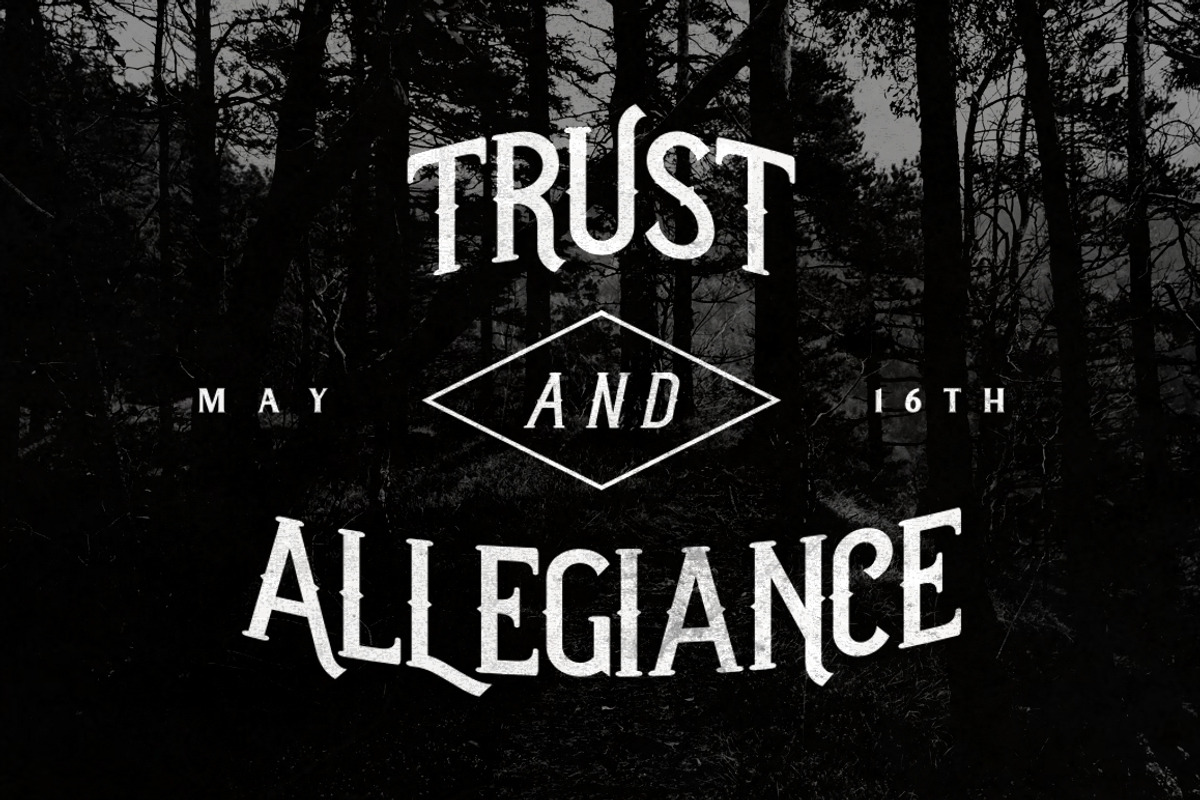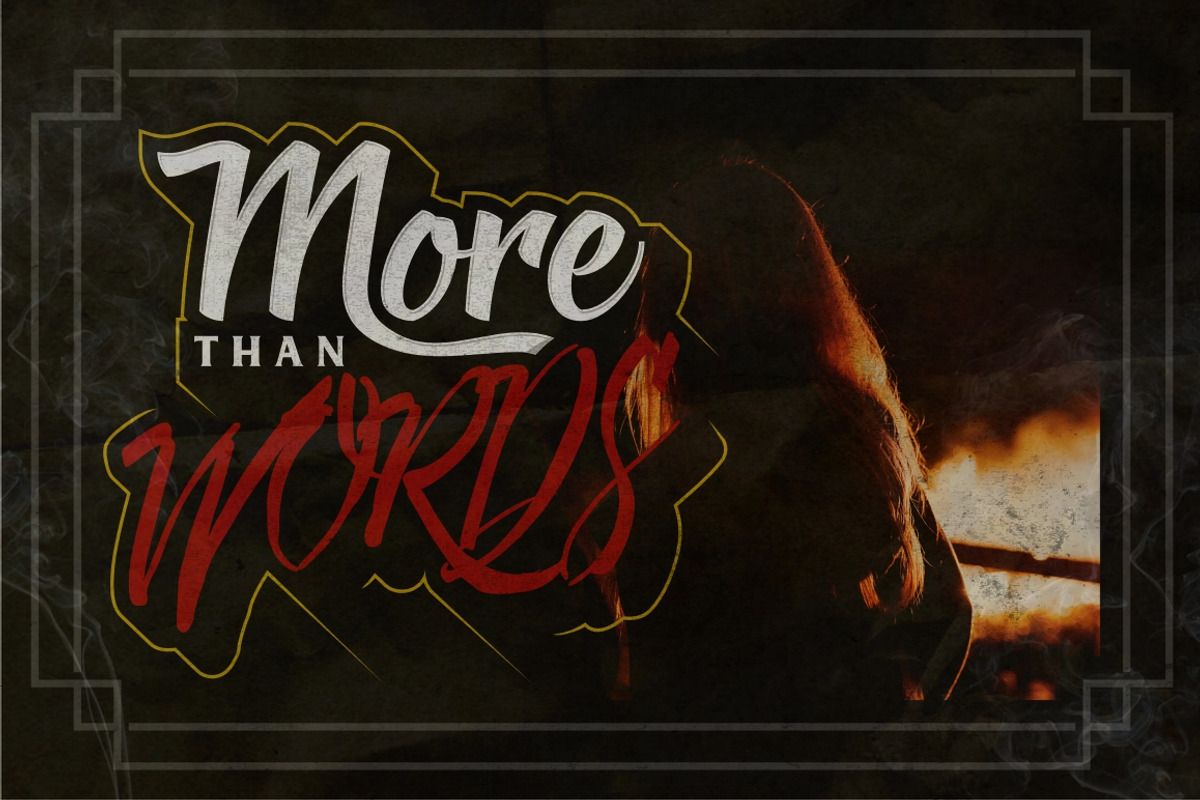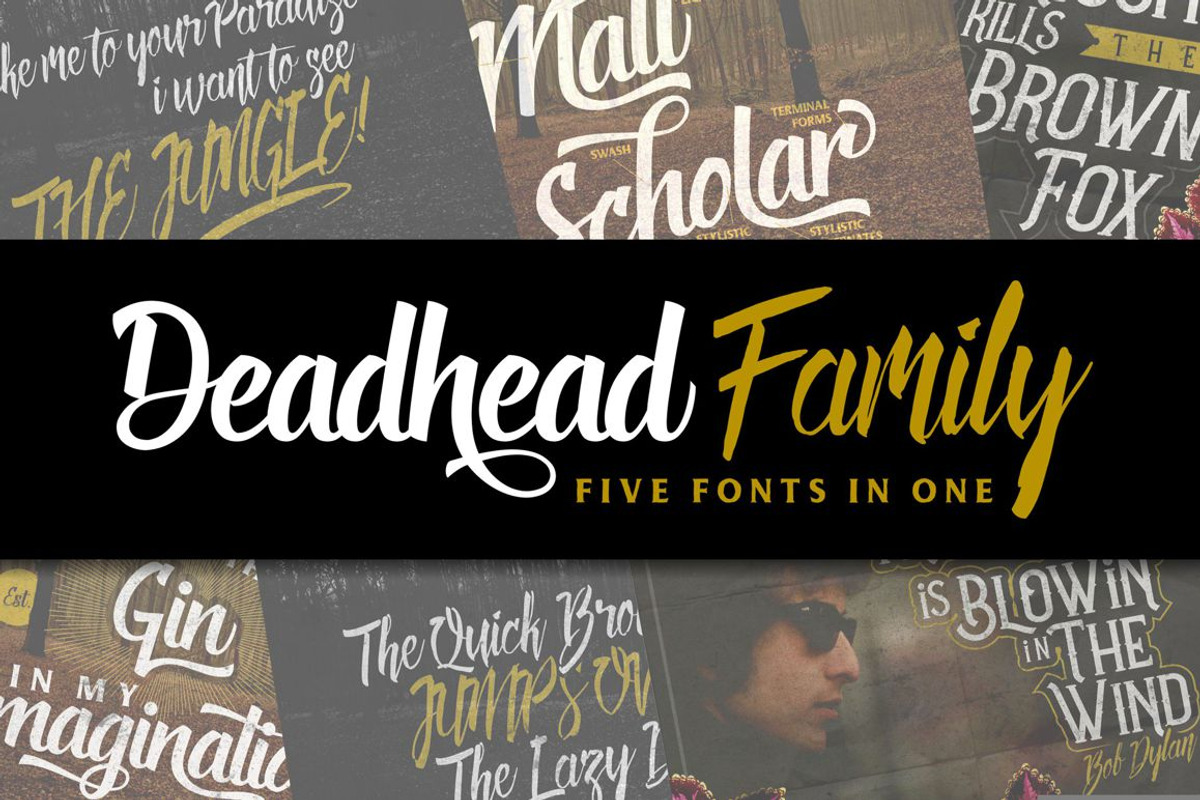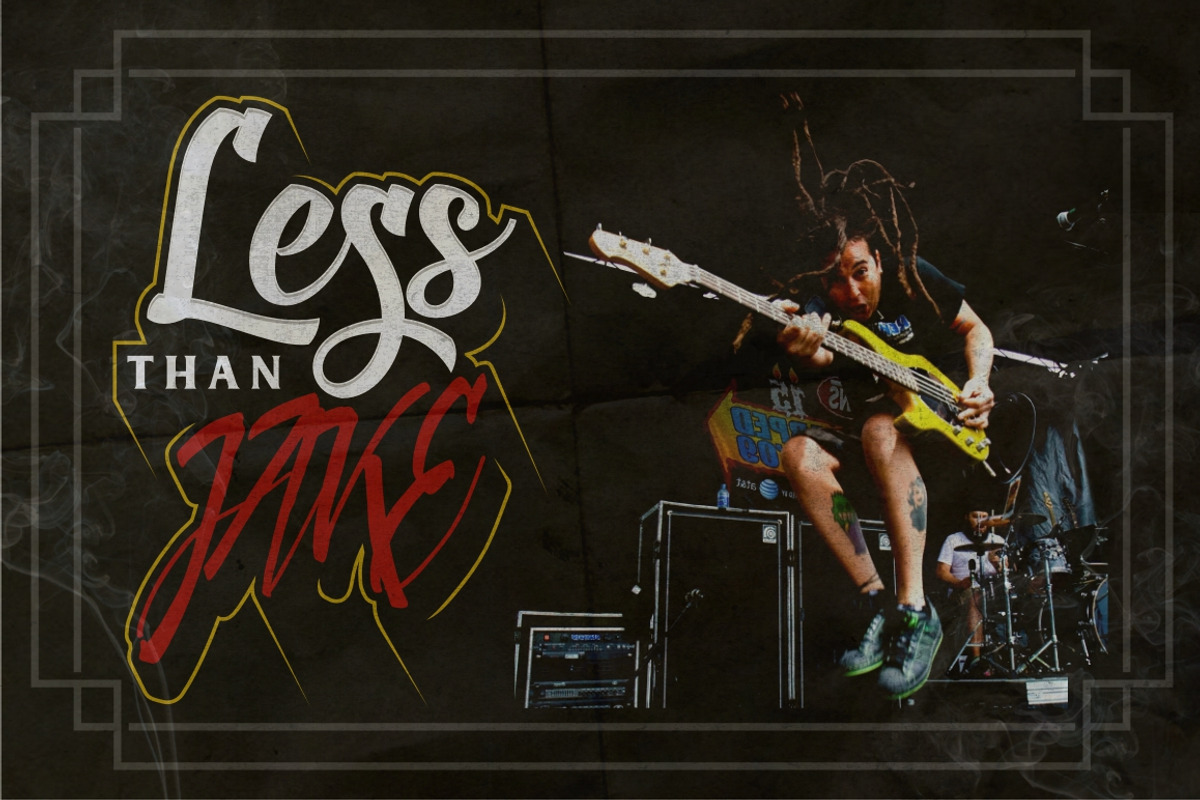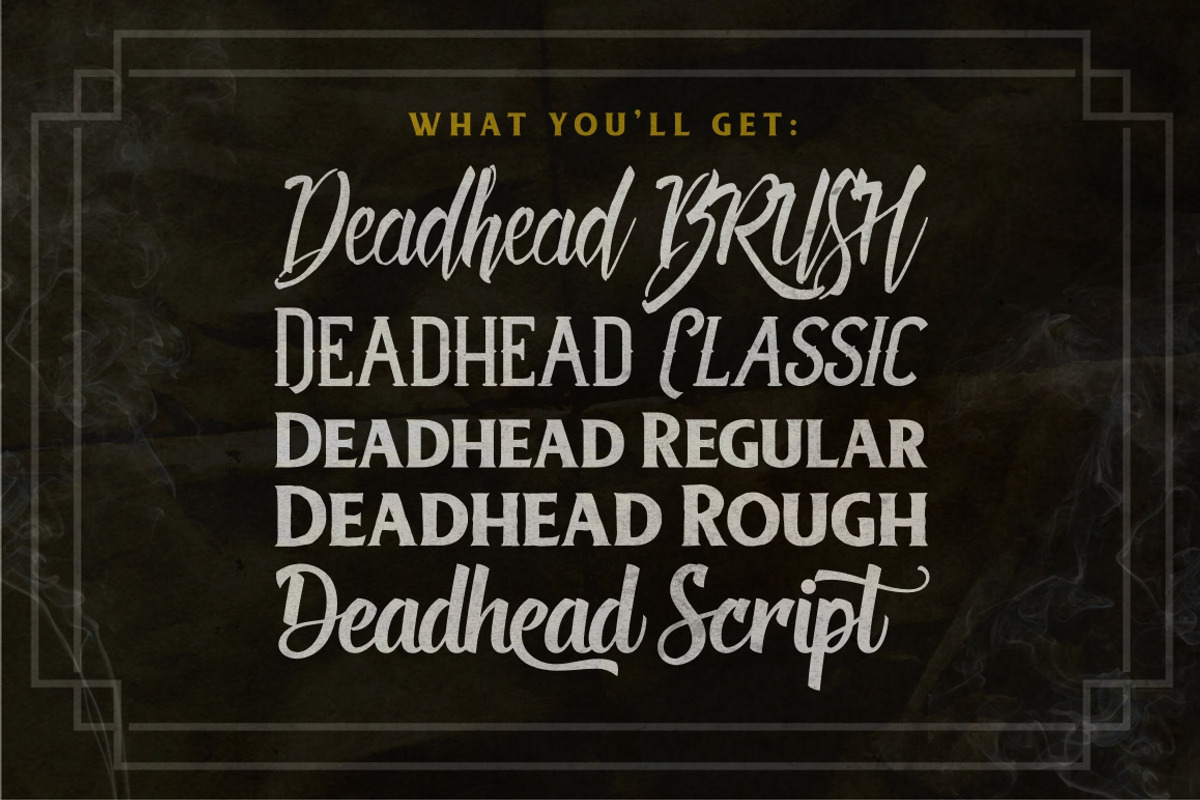
Deadhead Typeface Family
Deadhead Typeface Family by Twicolabs Fontdation is a font selected for branding, posters, packaging, typography.
- Deadhead Regular
- Deadhead Brush Regular
- Deadhead Classic Regular
- Deadhead Classic Italic
- Deadhead Rough Regular
- Deadhead Script Regular
- Deadhead Script Italic
Deadhead Typeface Family by Twicolabs Fontdation fits naturally into Branding, posters, packaging, typography.